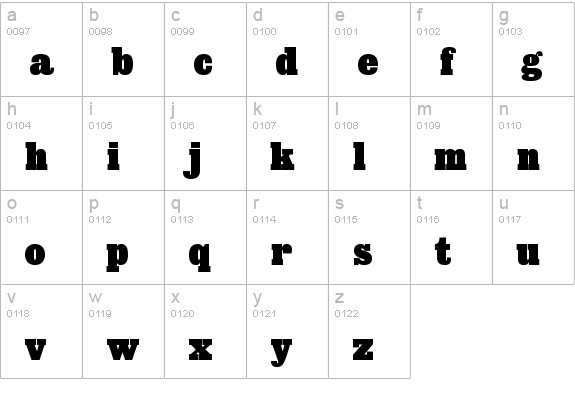
Giza-SevenThree is a modern and sleek font that exudes sophistication and style. With its clean lines and geometric shapes, this font is perfect for a wide range of design projects, from branding to editorial layouts. The striking visual impact of Giza-SevenThree makes it a versatile choice for both digital and print applications. What sets Giza-SevenThree apart is not only its contemporary aesthetic but also its accessibility. This font is available for free download at FontsMarket.com, making it a valuable resource for designers looking to elevate their work without breaking the bank. Whether you're working on a website, poster, or logo, Giza-SevenThree is sure to make a statement with its bold yet elegant appearance. Embrace the versatility and creativity that Giza-SevenThree has to offer, and elevate your design projects with this stylish and sophisticated font. Download it for free today and unlock a world of possibilities for your next creative endeavor.